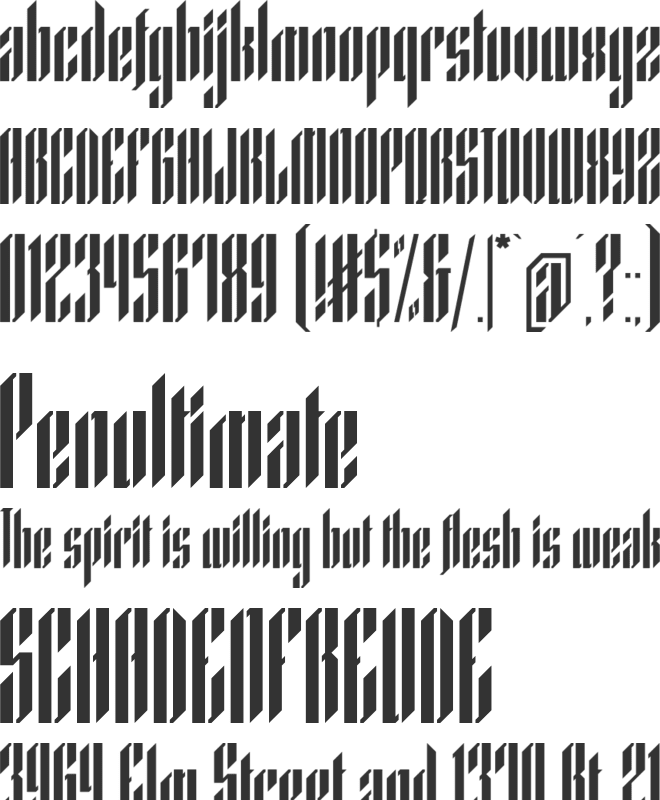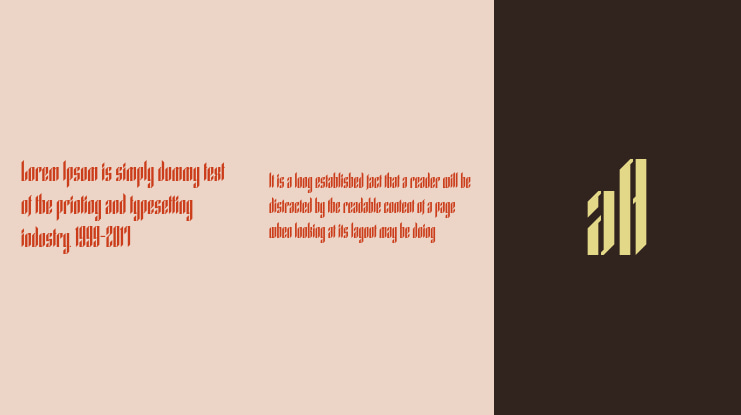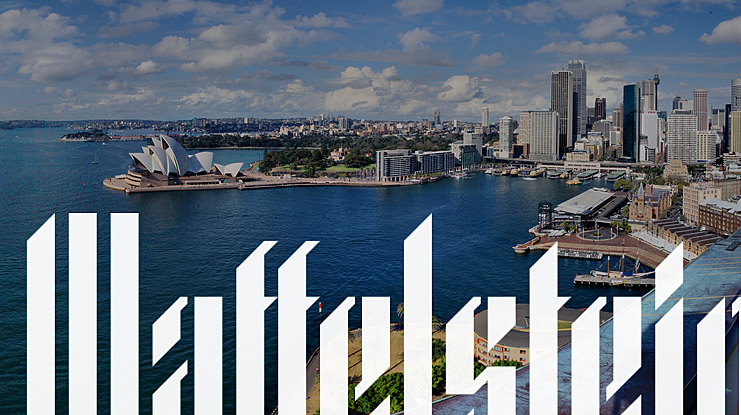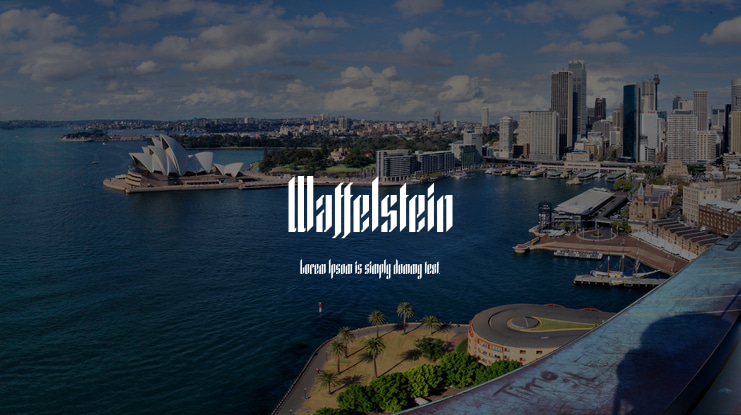
Waffelstein Font
Kolyu Kolev
Waffelstein is a modern geometric typeface inspired by waffles, old fraktur fonts, heavy rock bands, PC games and the graphical perspective. Waffelstein-Stencil is FREE stencil demo of Waffelstein with limited amount of glyphs.